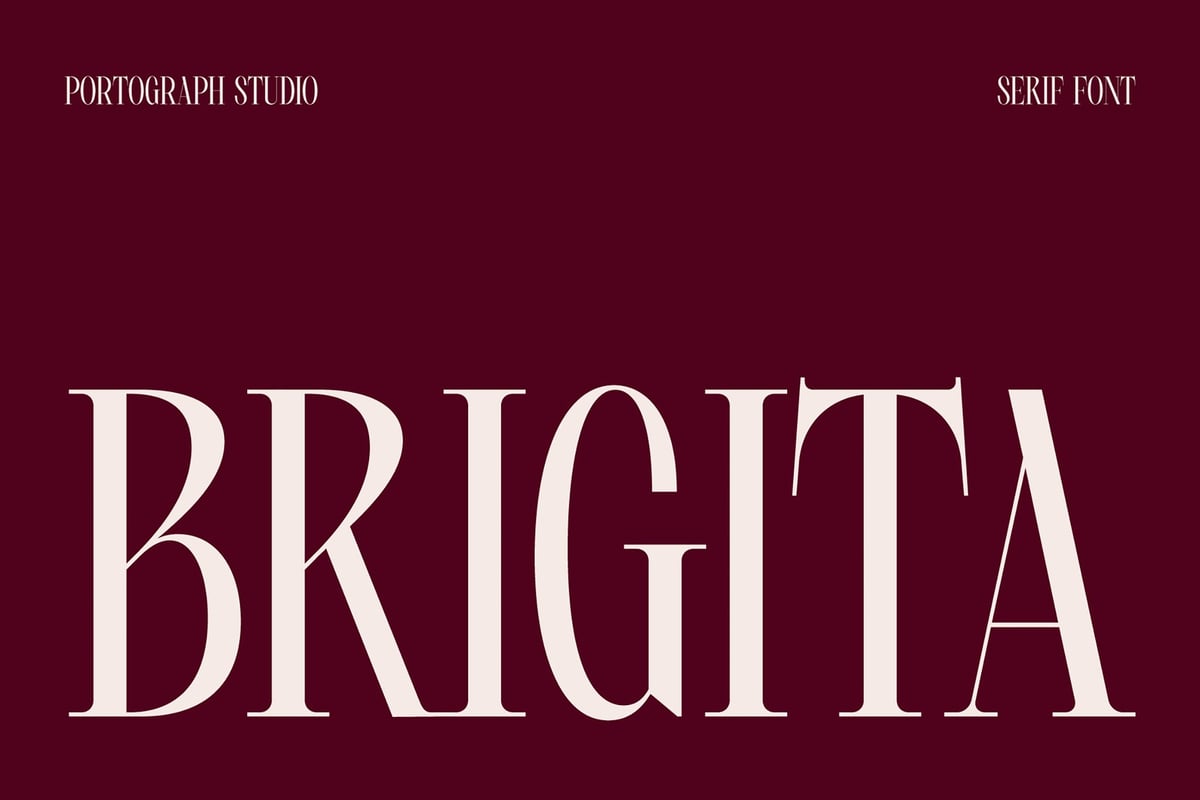
Brigita - Luxury Font
Elevate your premium branding with Brigita's sophisticated serif elegance and timeless luxury appeal. This luxury elegant serif display font is meticulously designed to enhance premium branding and editorial projects. With refined letterforms, balanced contrast, and a timeless aesthetic, Brigita delivers the sophisticated, high-end feel that discerning designers demand for beauty, skincare, fashion, and lifestyle projects. In Package: OTF TTF WOFF Features: Uppercase Lowercase Ligatures Numerals...